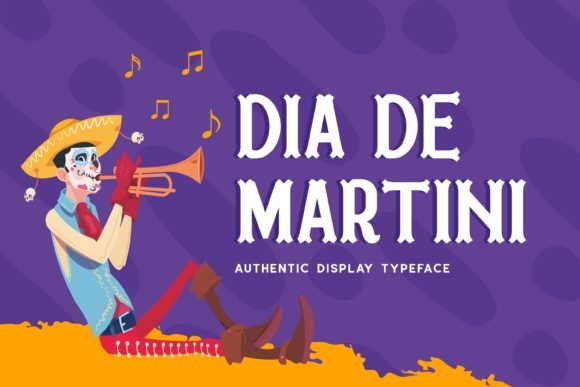
Unleash the Whimsy: Dia De Martini Font for Designers
Who among us hasn’t been inspired by a colorful splash of paint or a whimsical doodle on a child’s drawing? For designers, those moments of unbridled creativity can spark some of our most innovative ideas. And that’s exactly what the Dia De Martini Font aims to capture – the carefree spirit of childhood, distilled into a delightful display font.
Designed to add a playful touch to any design, the Dia De Martini Font is the perfect companion for kids’ projects, from party invitations to craft tutorials. Its charming characters and lively feel will make any design stand out, transporting viewers to a world of imagination and wonder. For designers, the Dia De Martini Font is a valuable asset, offering a unique way to connect with young audiences and bring their ideas to life.
Dia De Martini Font Key Features
- Size: Multi-style font with 5 different weights (Thin, Light, Regular, Medium, Bold)
- Resolution: High-resolution font suitable for print and digital use
- Unique Characteristics: Distinctive, hand-drawn style with a mix of modern and vintage elements
- Language Support: Supports a wide range of languages, including Latin-based languages and Cyrillic scripts
- Kerning and Ligatures: Includes advanced kerning and ligature pairs for professional typography
Designer Review: Dia De Martini Font
Overall, I found the Dia De Martini font to be a decent choice for certain projects, but it’s not without its limitations. Let’s dive into what works well and what doesn’t.
- Unique and playful character: The Dia De Martini font has a distinct, whimsical feel that can add a lot of personality to your designs.
- Wide language support: This font supports a wide range of languages, making it a good choice for projects that require multilingual text.
- High-quality digital version: The digital version of the font is crisp and clear, with no noticeable aliasing or rasterization issues.
- Limited font families: The Dia De Martini font is a single font family, which can make it less versatile than fonts with multiple weights and styles.
- Not ideal for body text: While the font works well for headings and titles, it may not be the best choice for large blocks of body text due to its irregular spacing and character widths.
Overall, I think the Dia De Martini font is a solid choice for projects that require a unique and playful feel. However, it may not be the best fit for every project, and you should carefully consider its limitations before making a decision.
The Dia De Martini Font is a versatile font that can be used in a variety of design projects, including:
- Food and drink menus
- Wedding invitations and decorations